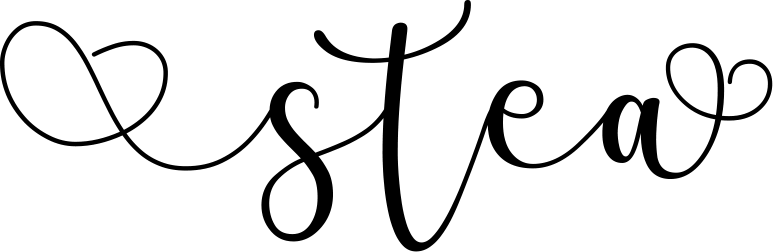
Stea Font
Checking for a certain calligraphy font? Then you are at the best place! Stea is cursive, formal, and has an attractive look, with characters that are flowing, they develop a joint handwriting. It’s not that straightforward to read but it will enhance a natural, energetic, and modern feel to your typography.
The letterforms provided are lowercase alphabets and punctuation and there are no digits or capital letters available. Books, texts, scripts, posters, and branding are where you might consider utilizing this minimalist script font.
Stea is a fun, decorative script font. It comes with stunning decorative characters that can be used to decorate the end and beginning of words as well as gluing words together. This allows for unique combinations that make your designs stand out.